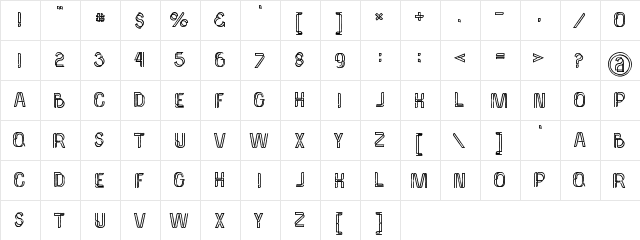
palma bold grunge Regular Font Preview
palma bold grunge Regular
palma bold grunge Regular Font Details
| Foundry | cruzine |
| Designer | cruzine |
Design Context for palma bold grunge Typeface
palma bold grunge embraces imperfection — its rough, textured character adds raw authenticity to designs that want to feel lived-in and unconventional.
Suited to punk-influenced zines, underground music branding, streetwear, and raw, anti-corporate design.
Pro Tip: Pair palma bold grunge with intentionally raw or lo-fi design elements. Fighting against it with overly polished surroundings will undermine its personality.